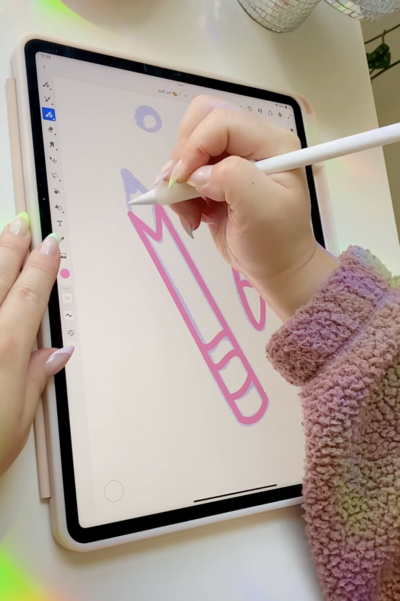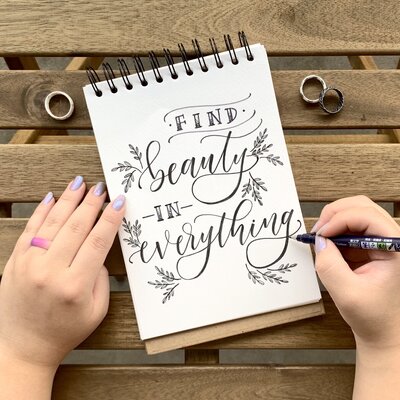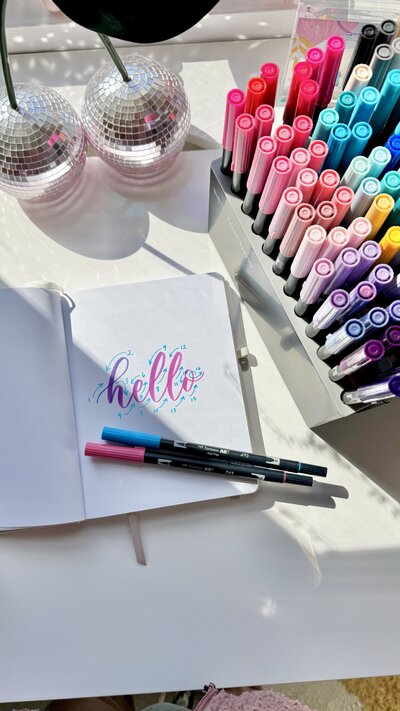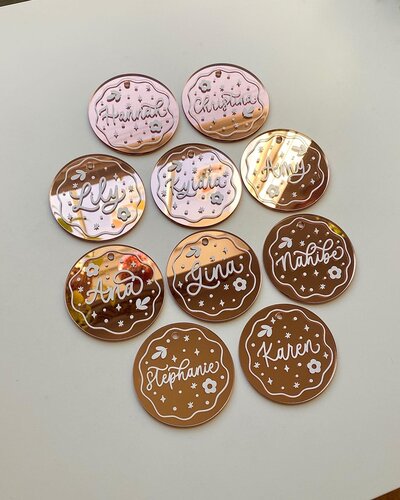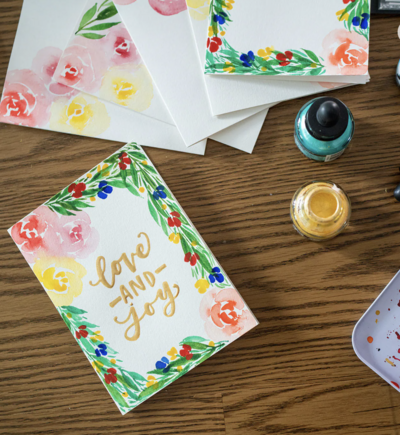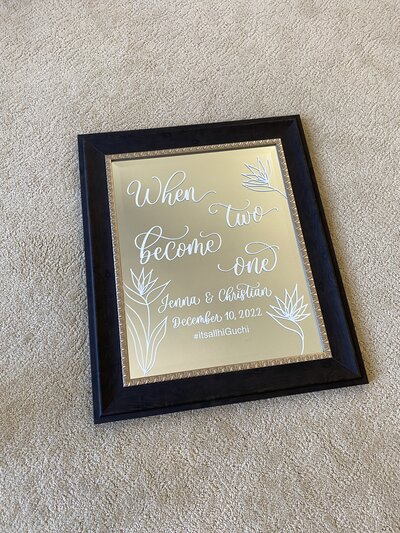
The Beginner's Lettering Course
A beginner-friendly, step-by-step course designed to help you build confidence, learn the foundations of lettering and create beautiful artwork through both traditional and digital mediums!
Whether you dream of creating handmade gifts, meaningful projects, beautiful artwork, or simply finding a creative hobby you love, this course will guide you through every step!
✅ Brush pen + iPad lettering
✅ Practice sheets for every lesson
Maybe you’ve...
💭 Bought brush pens or an iPad but don’t know what to practice
💭 Saved countless tutorials but still feel overwhelmed
💭 Practiced letters but can’t figure out why they don’t look the way you imagined
💭 Wondered if you’re “creative enough” to create beautiful things
💭 Wanted to make cards, gifts, artwork, or products but didn’t know where to begin
If this sounds like you...
You're in good company. This is where so many of my students started!
Have you always wanted to learn lettering… but didn’t know where to start? 🥹
The truth is...
Beautiful lettering isn’t about having perfect handwriting.
It’s about learning the right foundations, practicing with intention, and giving yourself the space to create.
Imagine going from...
😔 “I don’t know where to start.”
❌ “My lettering doesn’t look like the examples.”
👎 “I’m practicing, but I’m not improving.”
😥 “Maybe I’m just not naturally creative.”
To...
🤩 Picking up your brush pen or iPad with confidence
🙌 Understanding the foundations behind beautiful lettering
👍 Always knowing what to practice next
🥳 Creating artwork, gifts and projects you’re excited to share
✅ Learning a creative skill that opens doors to new career opportunities
🎉 Saying: “Wait… I actually made this.” 🥹
Are you ready to leave the overwhelm behind and finally create confident, beautiful lettering you're proud of?
The Beginner's Lettering Course is for you!
Join me for a beautiful journey into mastering the art of hand-lettering (even if you’re a complete beginner!)
Explore brush pen + iPad lettering from the foundations up!
The beautiful thing about lettering?
The foundations stay the same, no matter what medium you choose. Inside this course, you’ll learn how to create beautiful lettering through:
🖌️ Brush Pen Lettering
Discover the foundations of traditional lettering:
✅ Understanding your tools
✅ Creating confident strokes
✅ Building letters
✅ Connecting words
✅ Developing beautiful compositions
Learn the feeling of creating something with your own hands.
🖊️ iPad Lettering
Explore digital lettering techniques:
✅ Using Procreate brushes
✅ Creating clean digital lettering
✅ Exploring layers and tools
✅ Creating artwork digitally
✅ Learning how to use Procreate
Discover the flexibility and possibilities of creating on your iPad.
Learn your tools, understand the foundations of lettering, and practice the basic strokes and connecting drills that create beautiful letters.
Week 1: Getting Started + Lettering Basics
Learn lowercase letter foundations and begin creating beautiful words with confidence and consistency.
Week 2: Building Beautiful Letters
Explore uppercase letters, practice lettering words, and learn how to navigate more challenging letter connections.
Week 3: Creating Beautiful Words
Continue improving difficult connections while discovering the difference between simple and bouncy lettering styles.
Week 4: Exploring Lettering Styles
Build on simple and bouncy lettering styles while exploring flourishes and expressive strokes to bring more personality into your work.
Week 5: Adding Personality + Expression
Learn how to create phrases, layouts, and DIY lettering projects that showcase everything you’ve learned.
Week 6: Bringing Everything Together
Continue improving difficult connections while discovering the difference between simple and bouncy lettering styles.
Week 4: Exploring Lettering Styles
How it Works 💗
Every Tuesday 💻
A new lesson drops (class begins September 1st!)
You’ll receive:
✅ Step-by-step video lessons
✅ Practice sheets that build on each other, so you always know what's next
✅ Guided exercises
Watch whenever works best for you!
Pause. Replay. Practice.
This course is for you if... ✨
💛 You’re completely new to lettering and want a clear path to start
💛 You’ve tried learning on your own but feel stuck
💛 You want to understand how to create beautiful lettering, not just copy examples
💛 You’re looking for a creative outlet that helps you slow down and enjoy making things
💛 You’re ready to create lettering pieces you’re proud of